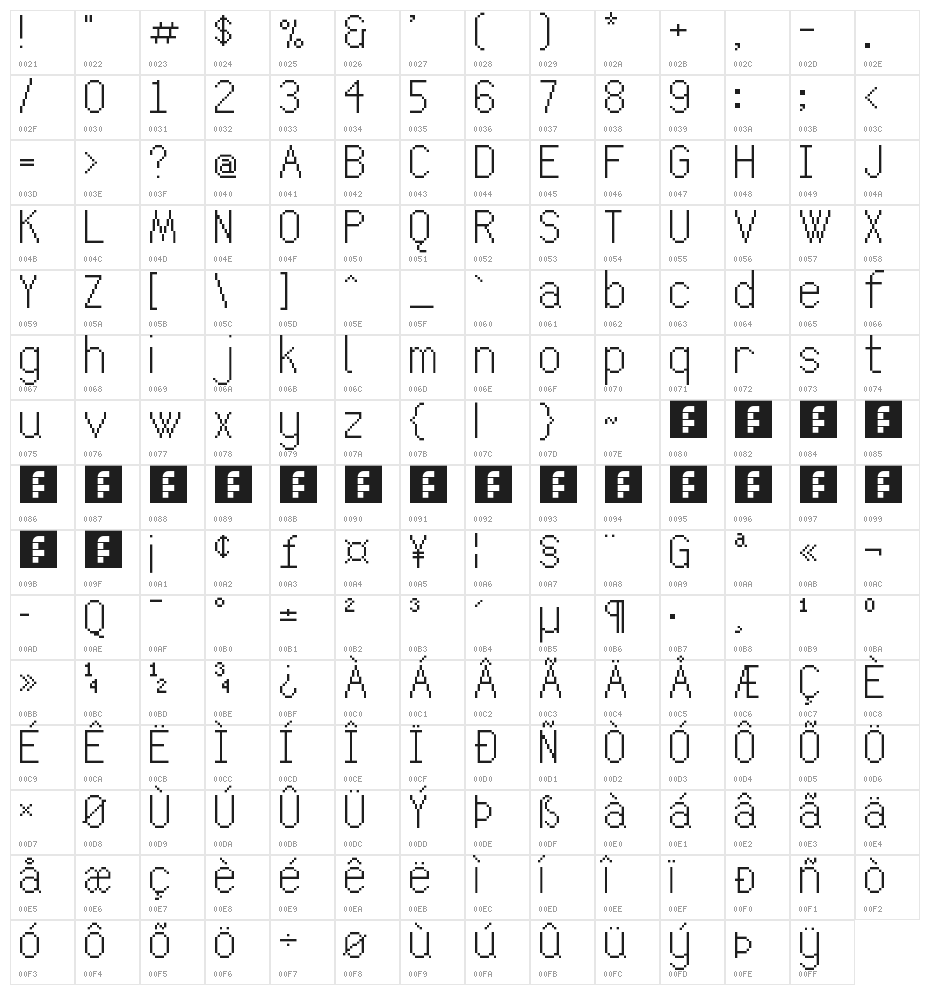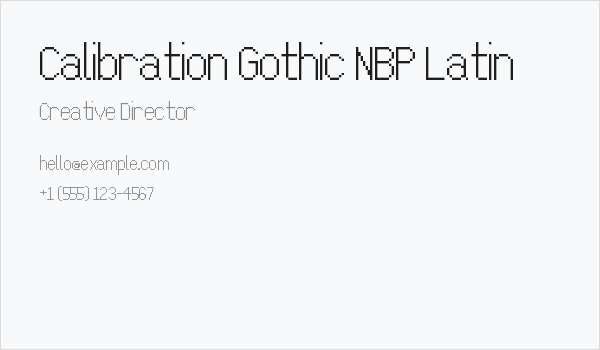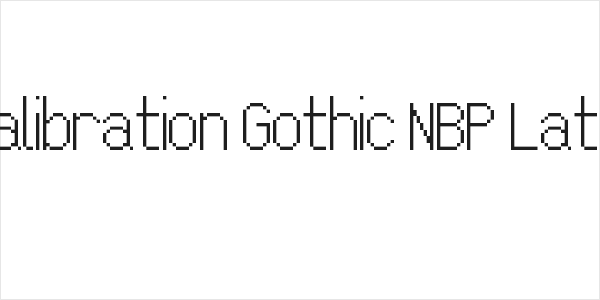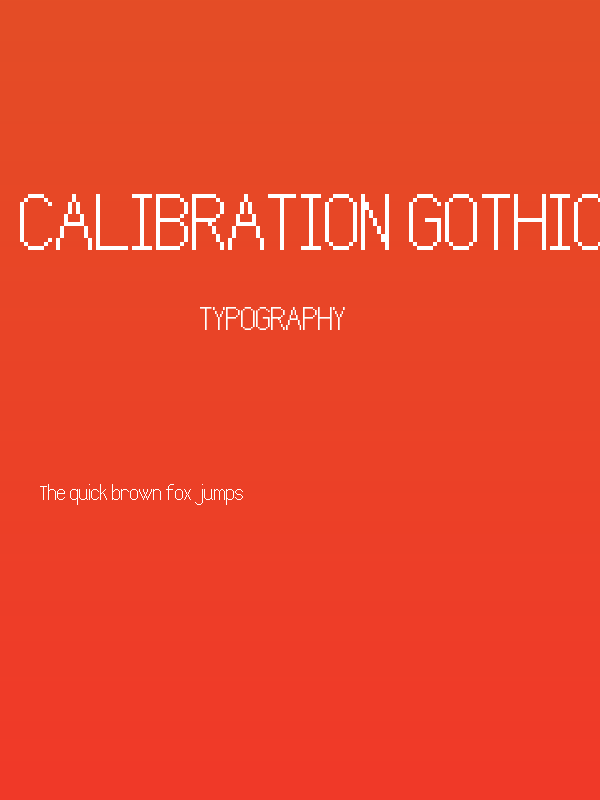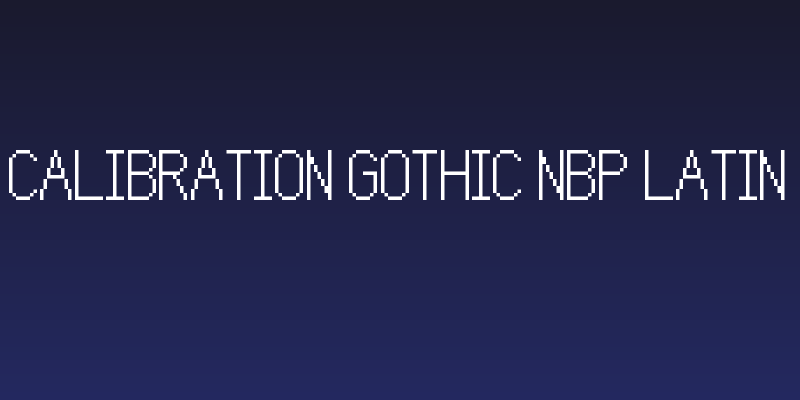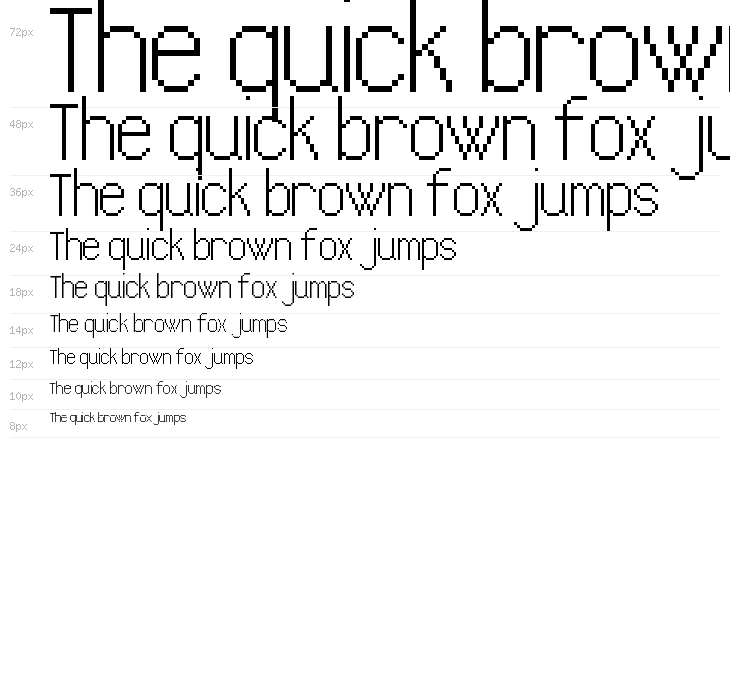
Calibration Gothic NBP Latin Font
Calibration Gothic NBP Latin Description
This font features a pixelated, grid-like structure that gives it a digital and retro appearance. The characters are formed with a consistent stroke width, creating a uniform and monospaced look. The uppercase and lowercase letters maintain a geometric style, with sharp angles and straight lines. Numbers and special characters follow the same design principles, ensuring a cohesive visual identity. The overall aesthetic is reminiscent of early computer displays or video game graphics, making it ideal for projects that aim to evoke nostalgia or a tech-inspired feel.
| Overall Style | Retro, Digital |
| Use Case | Logos, Digital displays, Posters |
| Proposed Projects | Ideal for retro video game designs, tech-themed posters, digital art projects, and nostalgic branding. |